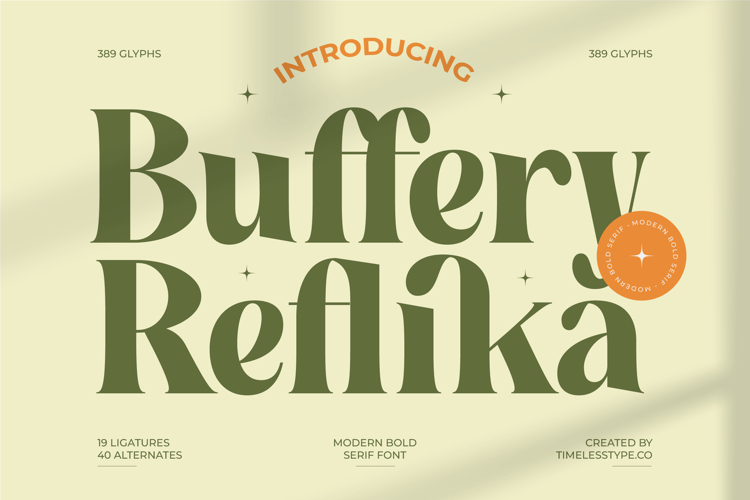
Buffery Reflika - Modern Bold Serif Font
Command attention with unparalleled elegance. Introducing Font Buffery Reflika - Modern Bold Serif Font Serif Display, a typeface crafted to infuse your projects with a distinctive blend of modern sophistication and timeless appeal. Its bold presence and subtly curved serifs create a harmonious visual rhythm, ensuring immediate impact. This display serif font offers a high-contrast aesthetic, perfect for designs demanding both readability and artistic flair.
Elevate your creative vision to a global stage. Font Buffery Reflika - Modern Bold Serif Font Serif Display comes equipped with a rich set of features, including 19 ligatures and 40 alternates, offering immense flexibility for unique typographic compositions. With its extensive multilingual support, Font Buffery Reflika - Modern Bold Serif Font Serif Display adapts seamlessly across global markets, making it incredibly versatile for international projects.
Define the essence of modern luxury. This exceptional typeface is the perfect choice for projects demanding sophistication and grandeur. It is ideally suited for luxury branding, high-end packaging, editorial design, elegant logotypes, and impactful headlines. Font Buffery Reflika - Modern Bold Serif Font Serif Display excels where a strong, refined visual identity is paramount, conveying exclusivity and contemporary style.
Transform your designs with unmistakable character. Font Buffery Reflika - Modern Bold Serif Font Serif Display is an essential tool for designers seeking to convey prestige and innovation. Its inherent grace and robust construction empower you to create visually compelling narratives. Invest in this modern bold serif and unlock the potential to produce truly memorable and captivating design experiences.